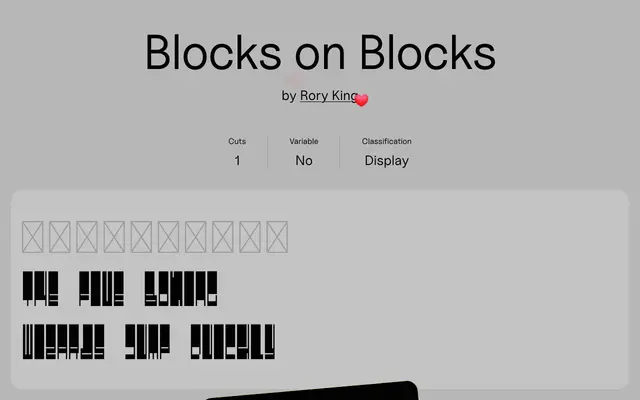
Blocks on Blocks
A single-cut display face by Rory King, released under the SIL Open Font License for free commercial and personal use.
A display typeface from designer Rory King, offered as a single non-variable cut. Available under the SIL Open Font License 1.1, it permits commercial use, modification and redistribution with conditions. Its name implies a stacked or modular construction approach typical of decorative display work.
Classified as Display by the foundry; the name and visual premise suggest a decorative or constructed letterform style suited to large-scale use.